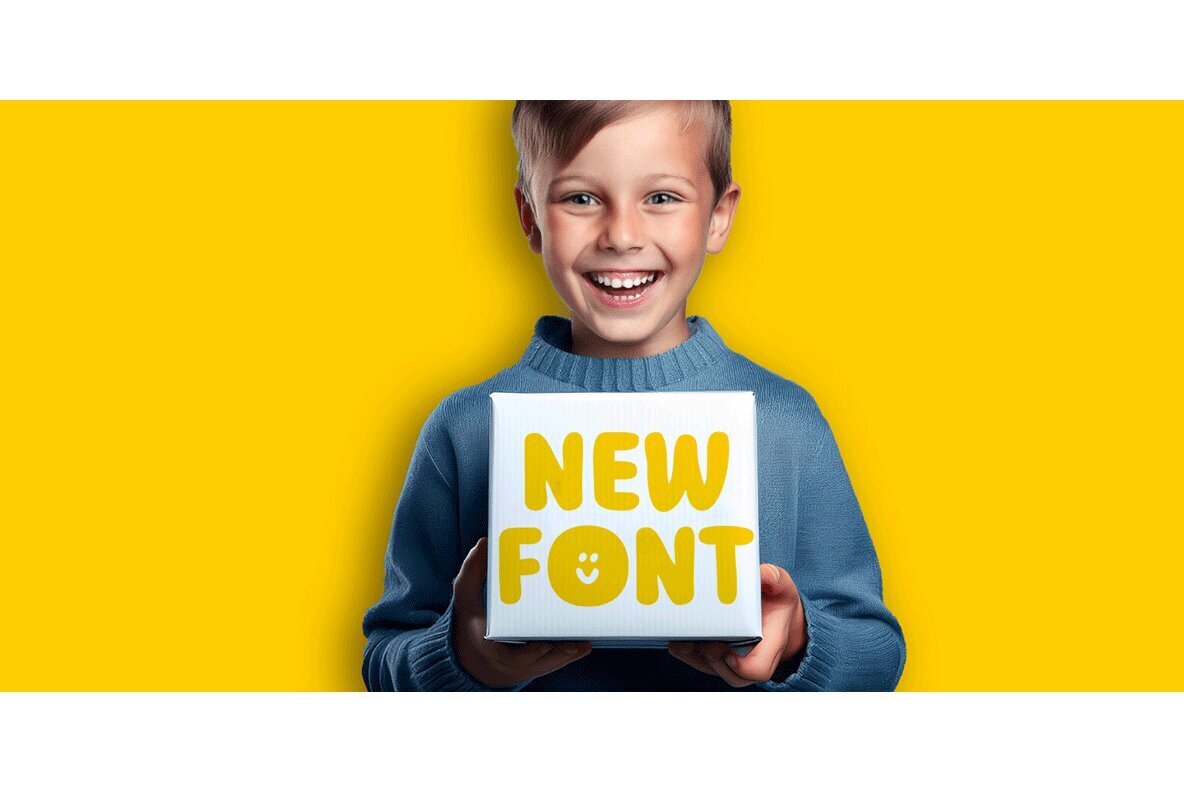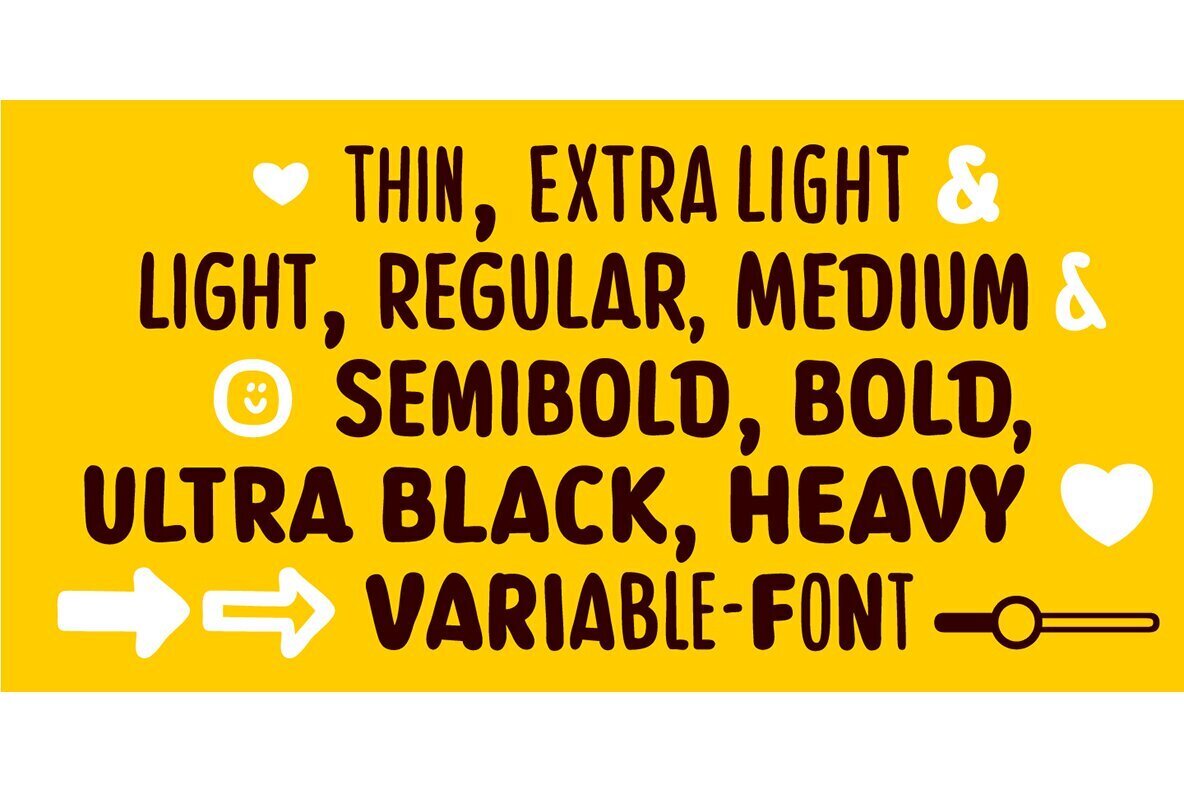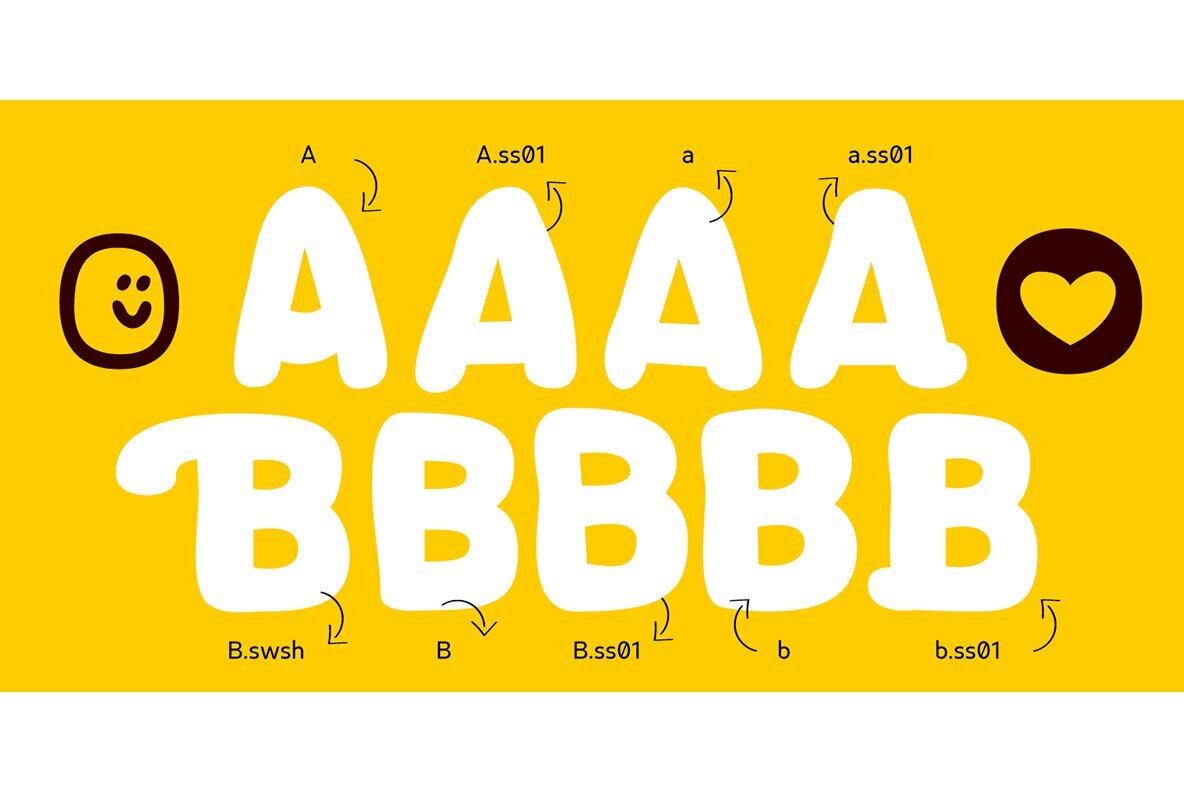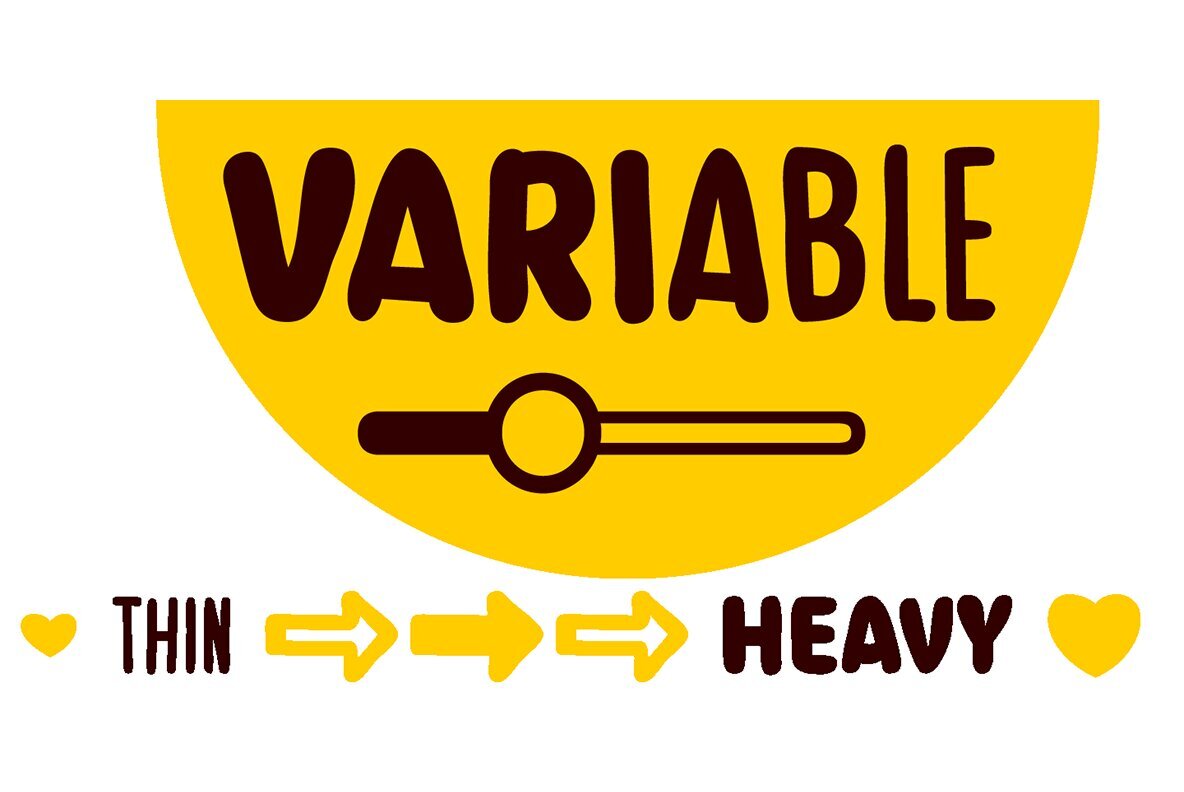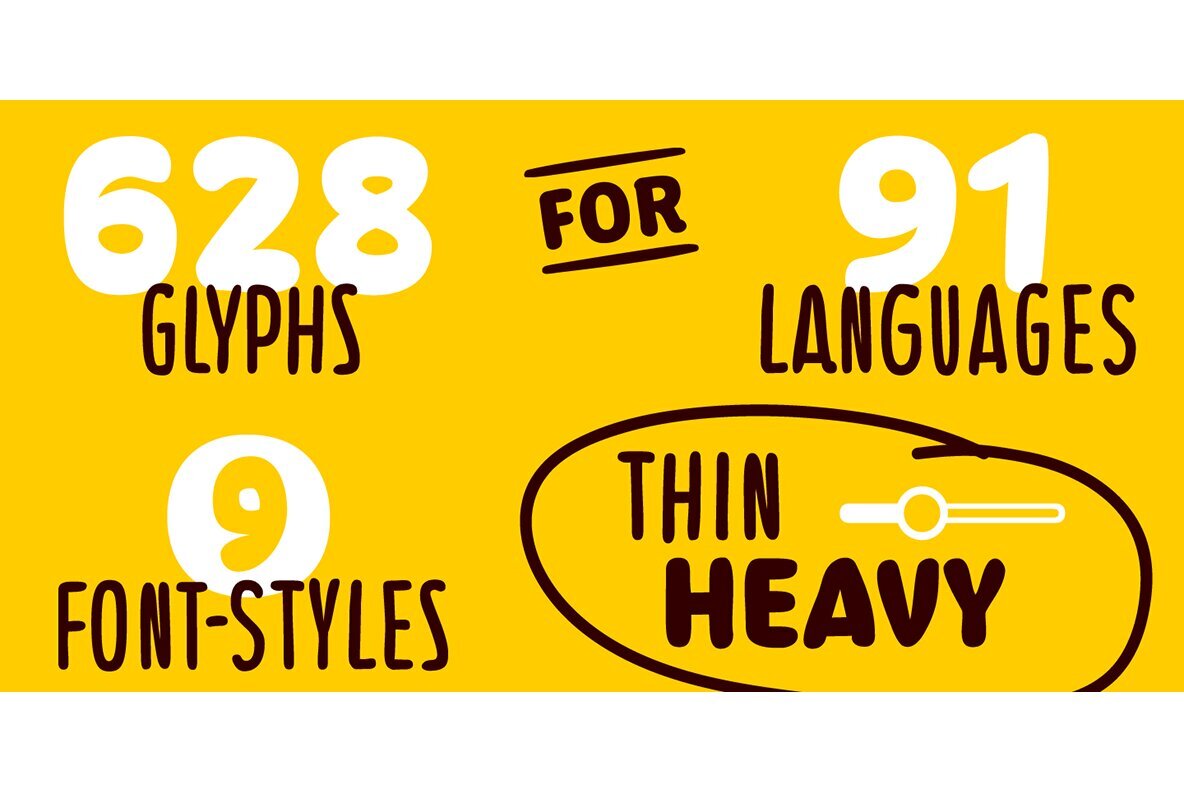
Banana Bread Font
The variable Sans Serif typeface Banana Bread is designed from 2024 for the font foundry Typo Graphic Design by Manuel Viergutz. 10 font-styles (Thin, Extra Light, Light, Regular, Medium, SemiBold, Bold, Ultra Black, Heavy + Mix) with 628 glyphs (Adobe Latin 3) incl. decorative extras like icons, arrows, catch words, dingbats, emojis, symbols, geometric shapes (type the word #LOVE for or #SMILE for as OpenType-Feature dlig) and stylistic alternates (2 stylistic sets). For use in logos, packaging for drinks & food, magazines, posters, advertisement plus as webfont for decorative headlines. The font works best for display size. Have fun with this font & use the DEMO-FONT (with reduced glyph-set) FOR FREE! Saftig, teigig, sloppy, organisch wie ein schönes Stück Font Specifications ■ Font Name: Banana Bread
herrlich lecker süß duftendes Bananenbrot *mampf* *yummy*
■ Font Styles: 10 font-styles (Thin, Extra Light, Light, Regular, Medium, SemiBold, Bold, Ultra Black, Heavy + Mix)
■ Font Category: Variable Sans Serif for headline size
■ Glyph Set: 628 glyphs (Adobe Latin 3 incl. decorative extras)
■ OpenType features (20): aalt calt case ccmp dlig dnom frac liga lnum locl numr onum ordn ss01 ss02 sups swsh kern mark mkmk
■ Specials: Capital Letter Sharp S (German Versal Eszett U+1E9E) ẞ, Catchwords like FOR, Emojis like Smiley , Symbols like Heart ♥︎, Variable Sans Serif Font
■ Design Date: 2024
■ Type Designer: Manuel Viergutz